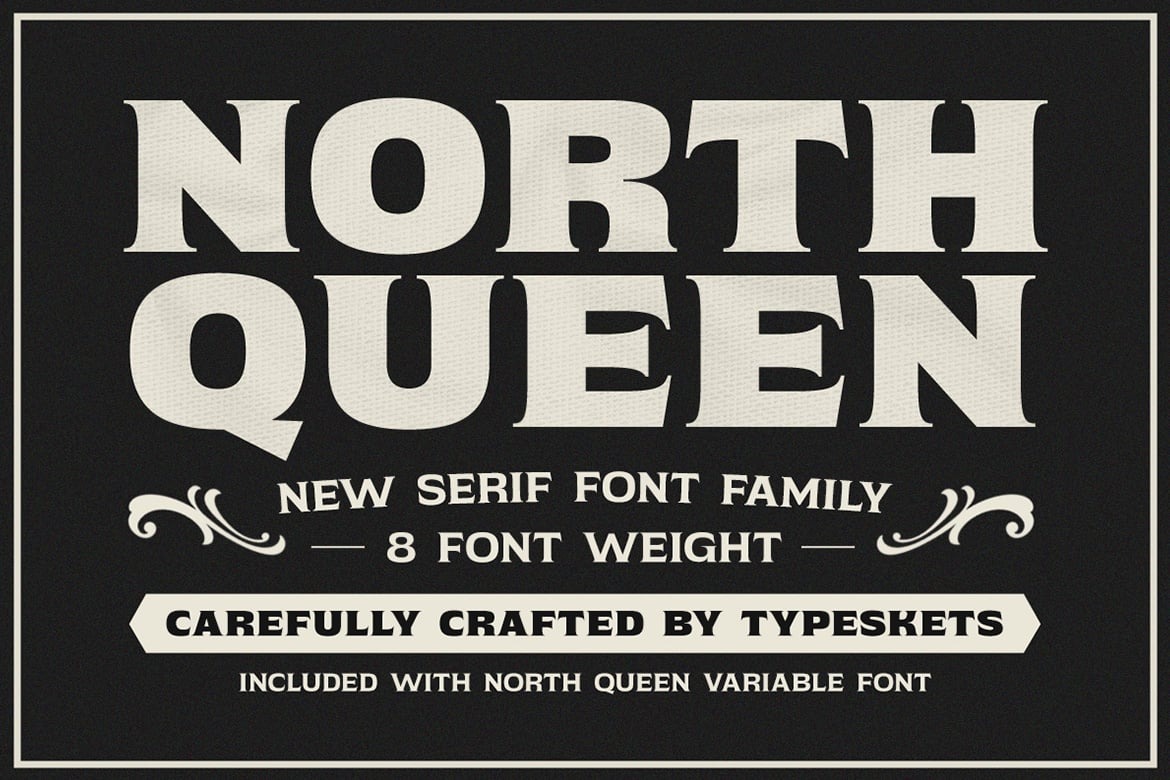
North Queen Font Family
North Queen Font Family is a versatile font designed to adapt beautifully across different design styles, offering dependable readability and balance. North Queen is a classic serif font family inspired by vintage editorial typography and timeless print aesthetics. Designed with strong structure and elegant curves, this font delivers a powerful yet refined presence for both modern and retro design needs.
This font family includes 8 carefully crafted weights, providing flexibility for a wide range of design applications—from bold headlines to refined logotypes. North Queen also comes with a variable font, allowing smooth weight adjustments and greater creative control.